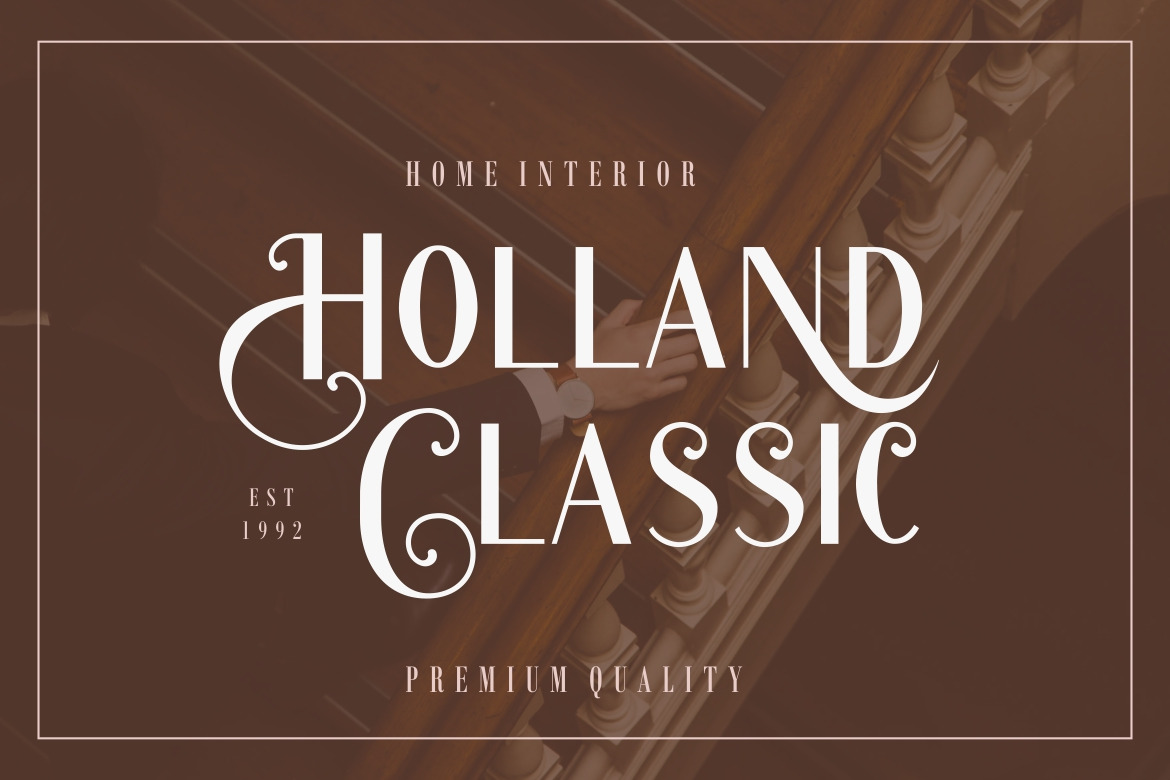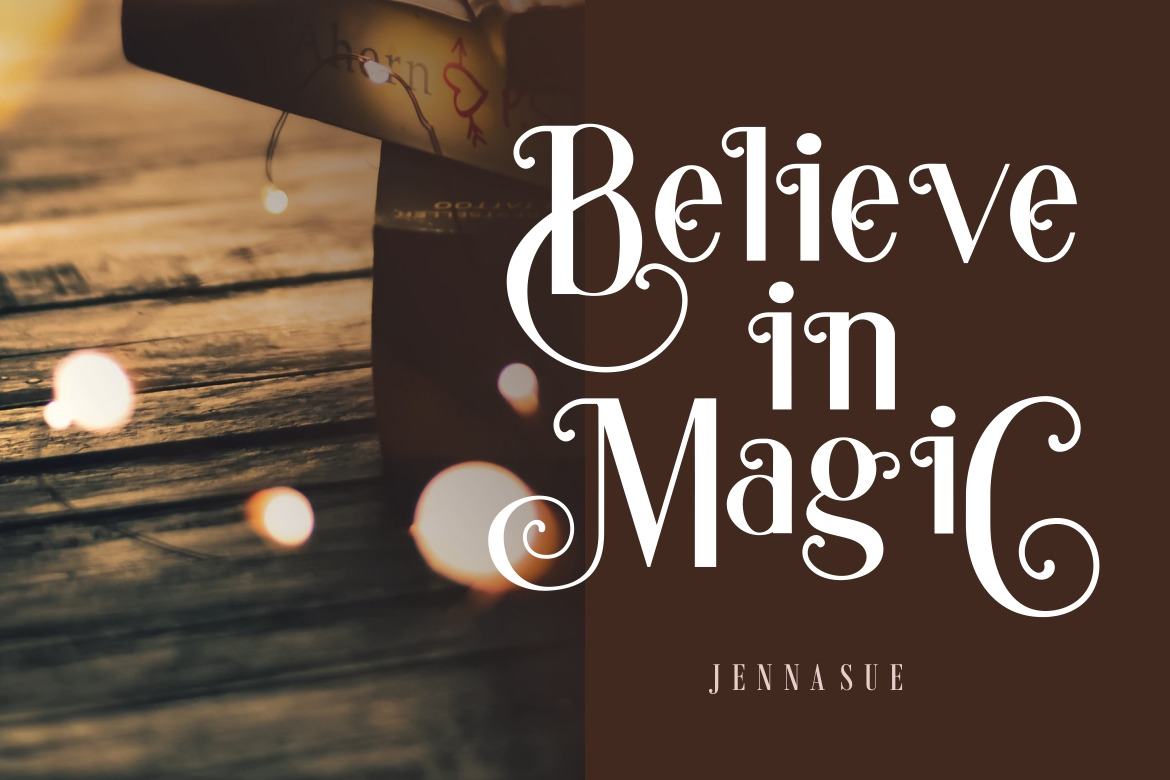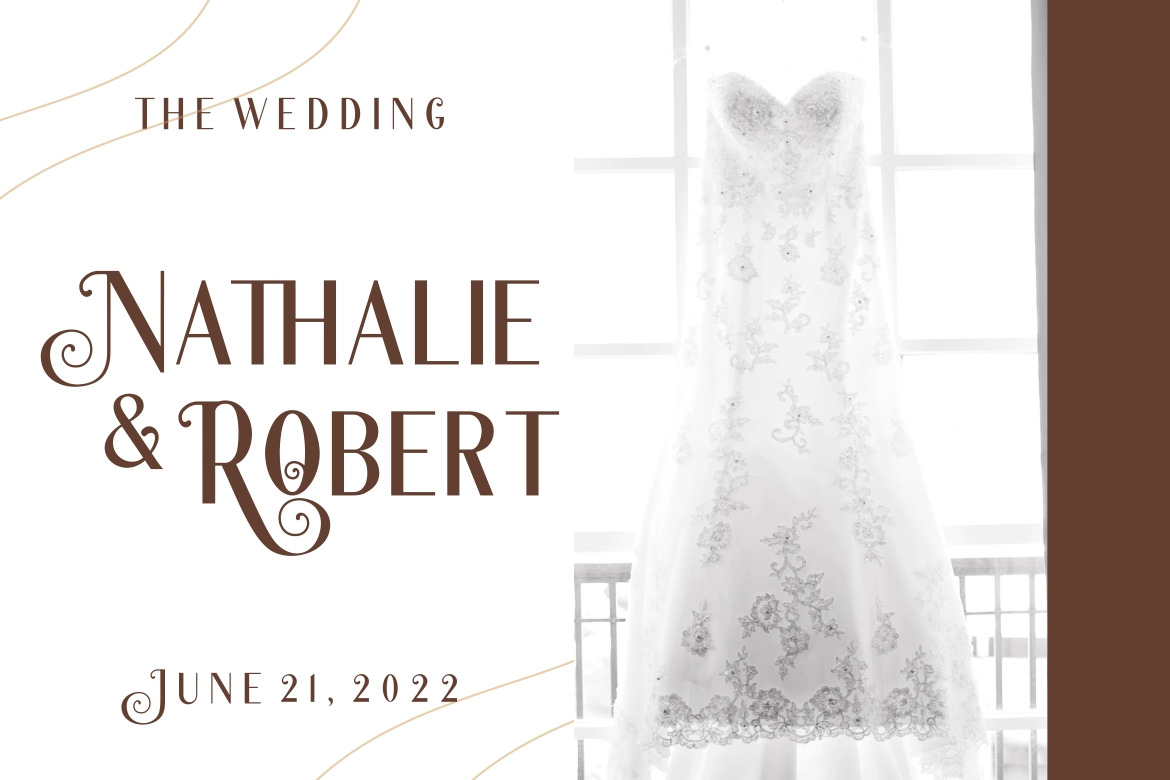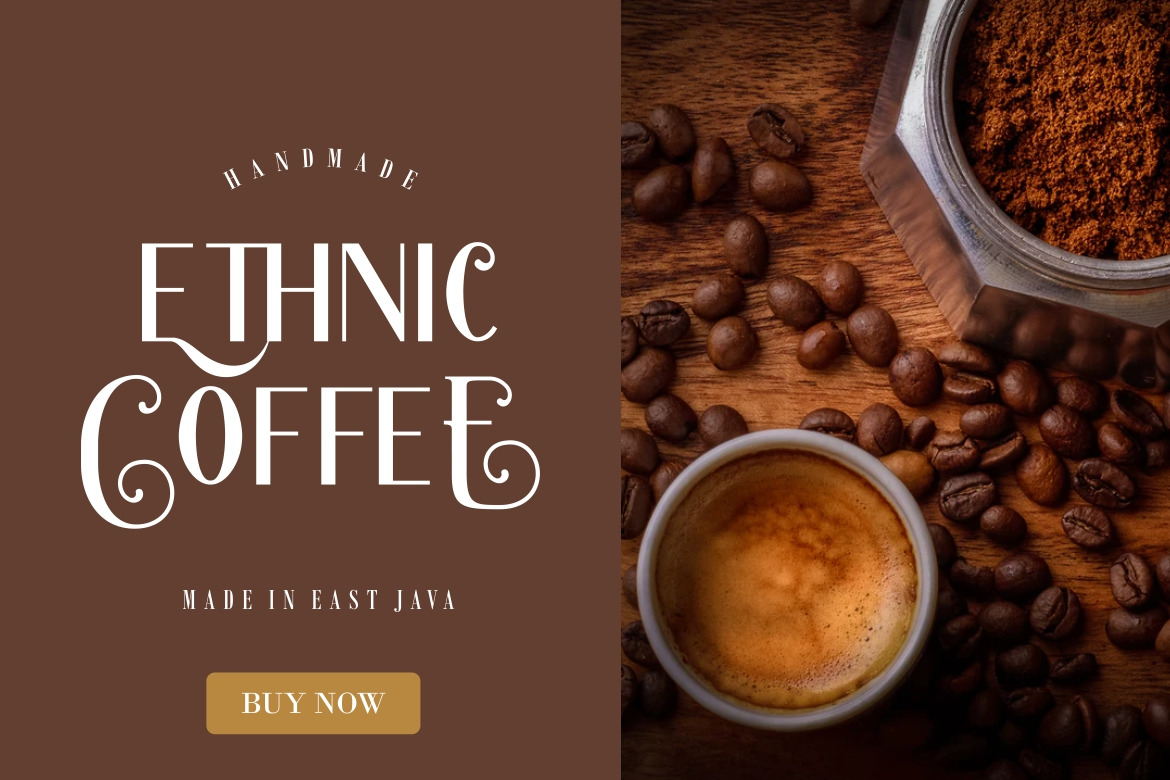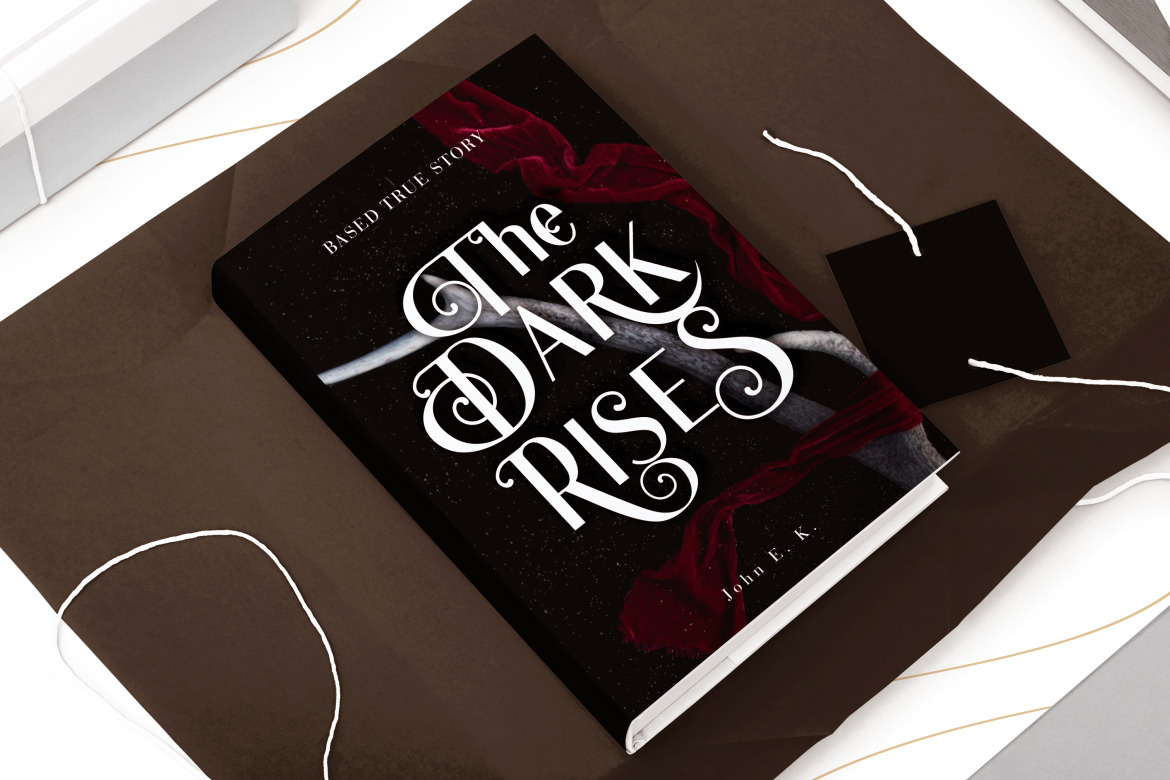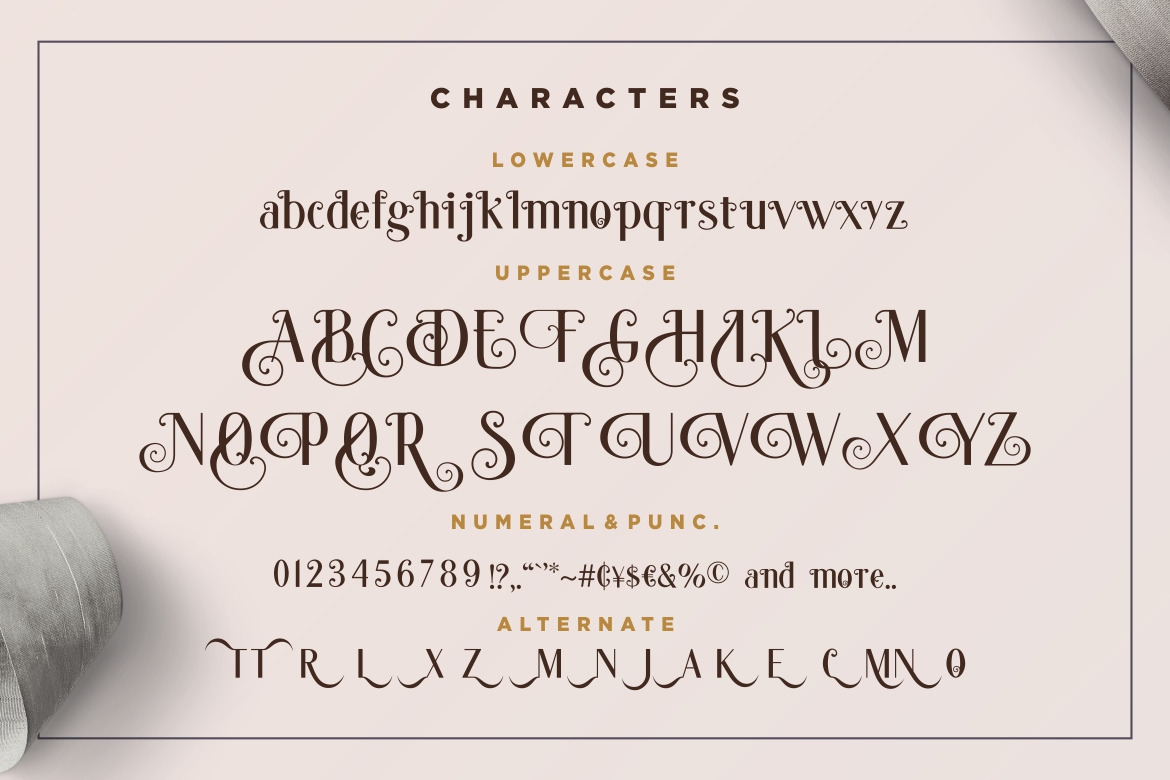
Crows Font
CROWS FONT
Crows font is a sans serif come with swirls yet ethnic style. This font is perfect for creating logo, print template like a poster, branding, wedding invitation, quote, or anything else. Availabe in 2 style font : lowercase and all caps.